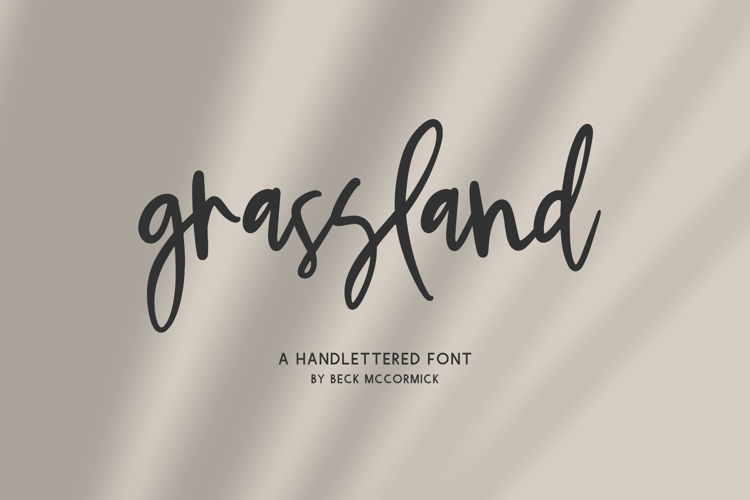
Introducing Grassland, a handwritten font. Grassland mimics natural handwriting, and is a little messy.
Grassland is best for:
- digital planners & apps like Goodnotes
- website design + website accents, blog design
- farmhouse decor and crafts
- feminine graphic tee shirt design & other apparel
Grassland includes:
- 26 alternates